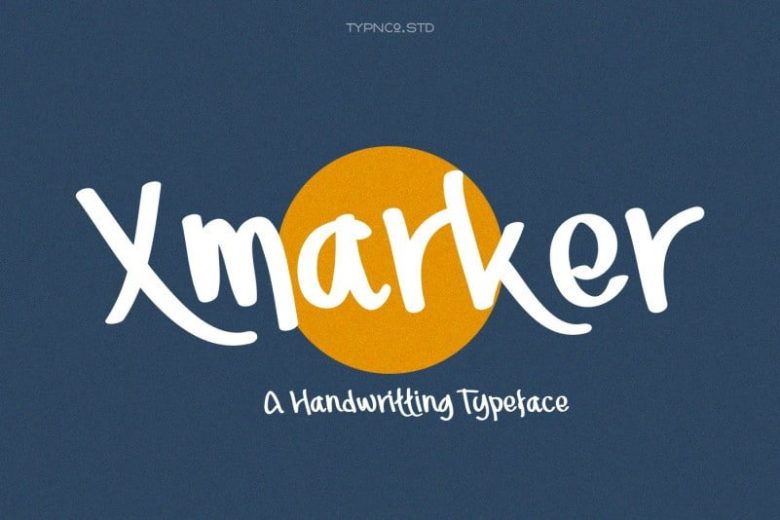
Xmarker Script Font
Xmarker Font is a handwritten signature script font, it’s a handmade script font with stunning characters. It’s a simple-clean Brush Font, handwriting with markers in different tilt. Ideal for logos, name tag, handwritten quotes, product packaging, merchandise, social media & greeting cards. It contains a full set of lower & uppercase letters, a large range of punctuation, numerals, and multilingual support.